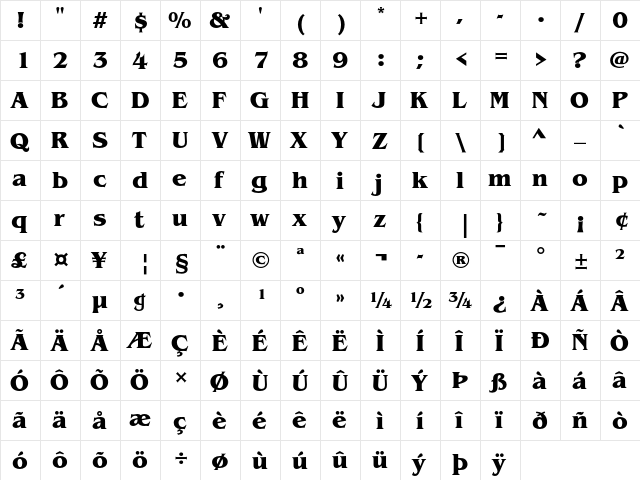
ITC Benguiat Bold
Design Context for ITC Benguiat Typeface
ITC Benguiat is a composed and adaptable typeface that performs quietly and consistently across a wide range of design contexts. Its bold stroke weight gives it real presence on the page.
Pro Tip: Use ITC Benguiat in both headline and body roles to test its range before committing to a single application.